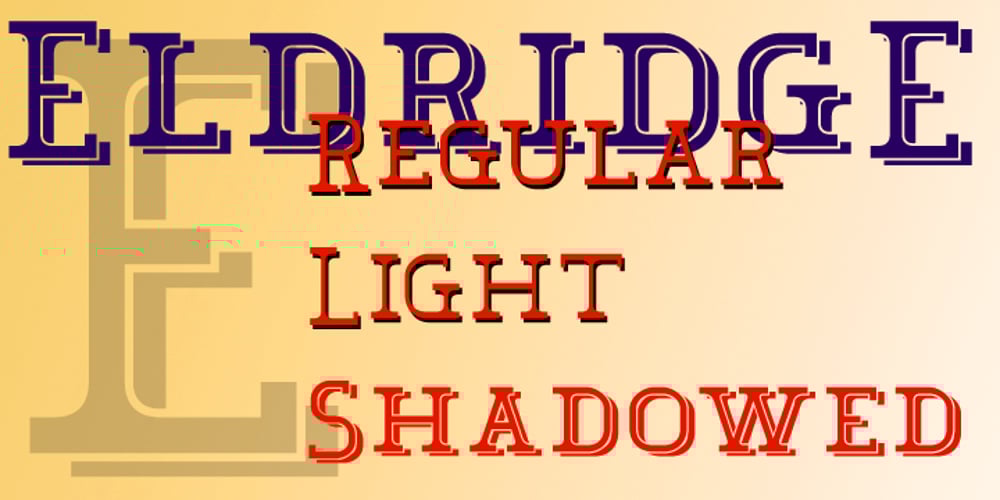
Eldridge
Eldridge font
Eldridge Font Family was designed by published by Greater Albion Typefounders. Eldridge contains 3 styles and family package options. Eldridge is reminiscent of the sort of clear functional slab serif that was often to be seen in the 19th century. It is the plainer cousin of our Bamberforth family and the two partner together very well—Bamberforth for the eye-catching headines and Eldridge for the essential support. It is another new face, which harks straight back to Victorian times and, as such, is ideal for giving anything a 19th century feel-especially posters, book headings, dust jackets and invitations.